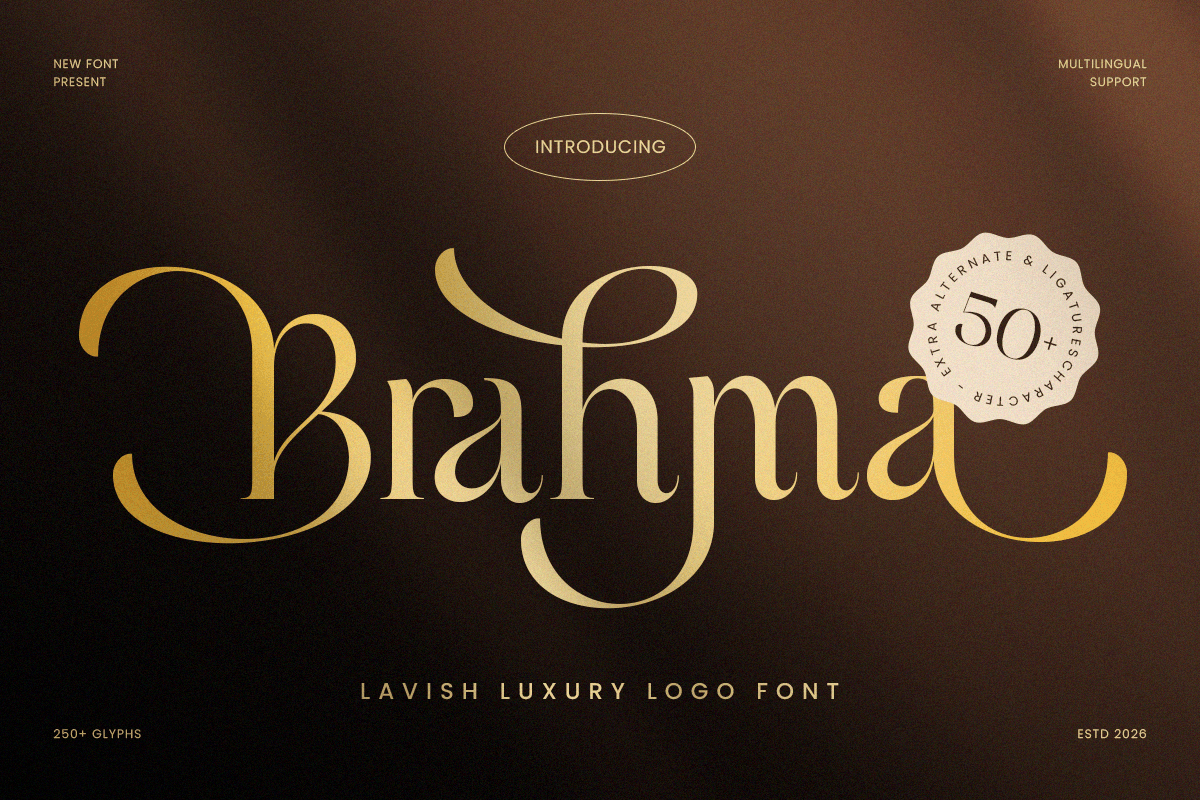
Brahma
-Elegant Classy Logo Font
Brahma is a lavish luxury logo font designed to deliver a bold sense of prestige with refined elegance. Built with polished letterforms and a confident high-end rhythm, this typeface creates an exclusive visual tone that feels timeless, sophisticated, and instantly brand-ready.
Designed for logo-centric typography, Brahma performs beautifully across wordmarks, luxury brand identities, premium packaging, labels, website headers, editorials, invitations, signage, and high-end marketing visuals. Its lavish character helps brands communicate quality and status, while the clean structure keeps every layout sharp and readable across digital and print.
Whether you’re building a fashion label, luxury beauty identity, premium product line, boutique brand system, or an upscale editorial concept, Brahma provides a lavish foundation that makes your typography feel elevated, confident, and unforgettable.
Inspiration Behind Brahma
Brahma is inspired by contemporary luxury branding and elegant editorial typography—where refined structure, confident spacing, and premium simplicity define high-end identity. The design focuses on polished presence and lavish rhythm to support upscale logos and premium communication with timeless style.
Brahma Font Features:
• Lavish luxury letterforms optimized for logo and wordmark design
• Elegant structure with premium, high-end visual rhythm
• Strong readability for brand statements and headline typography
• Luxury logos, wordmarks, and premium brand identity systems
• Fashion, beauty, skincare, fragrance, jewelry, and boutique branding
• Editorial layouts, magazine headlines, and premium presentations
• Luxury packaging, labels, invitations, and upscale stationery
• Social media campaigns, websites, ads, and high-end marketing assets
Elevate your premium identity with Brahma—crafted for lavish luxury logos with timeless, high-end impact. ✨